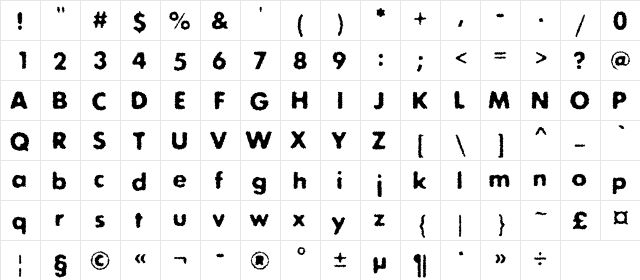
ExposureRoughTwoC Regular Font Preview
ExposureRoughTwoC Regular
Design Context for ExposureRoughTwoC Typeface
ExposureRoughTwoC trades polish for personality, using distressed and eroded forms to bring grit and attitude to creative work.
A strong fit for alternative music projects, graffiti-adjacent design, and anything that deliberately resists polish.
Pro Tip: Use ExposureRoughTwoC at larger sizes where the texture and irregularity of each letterform can be clearly seen — it loses its character at small sizes.